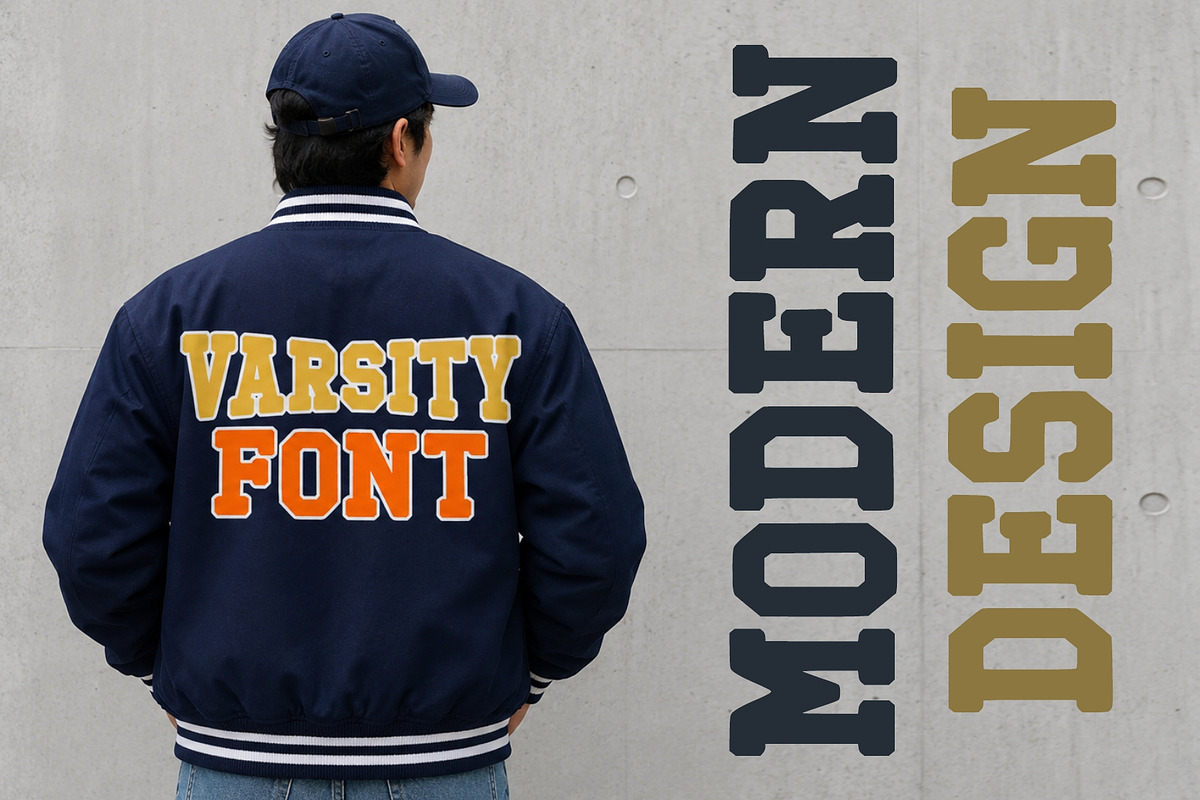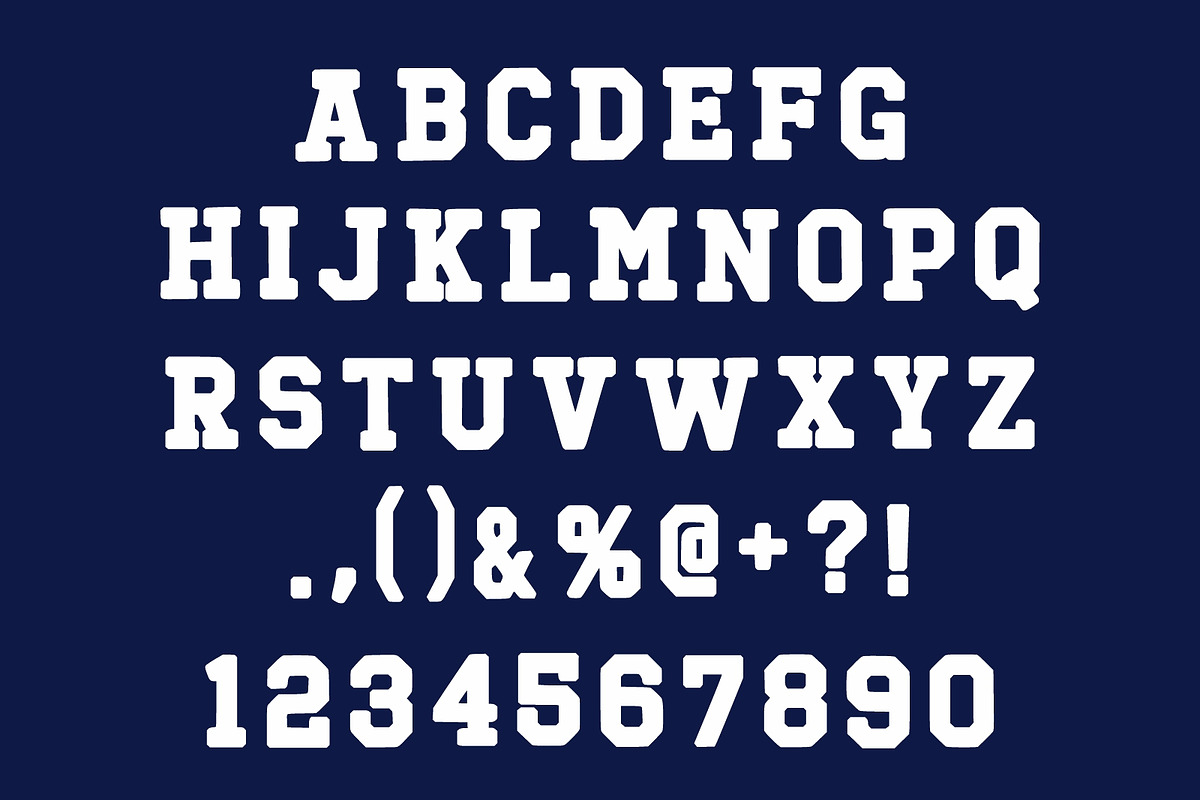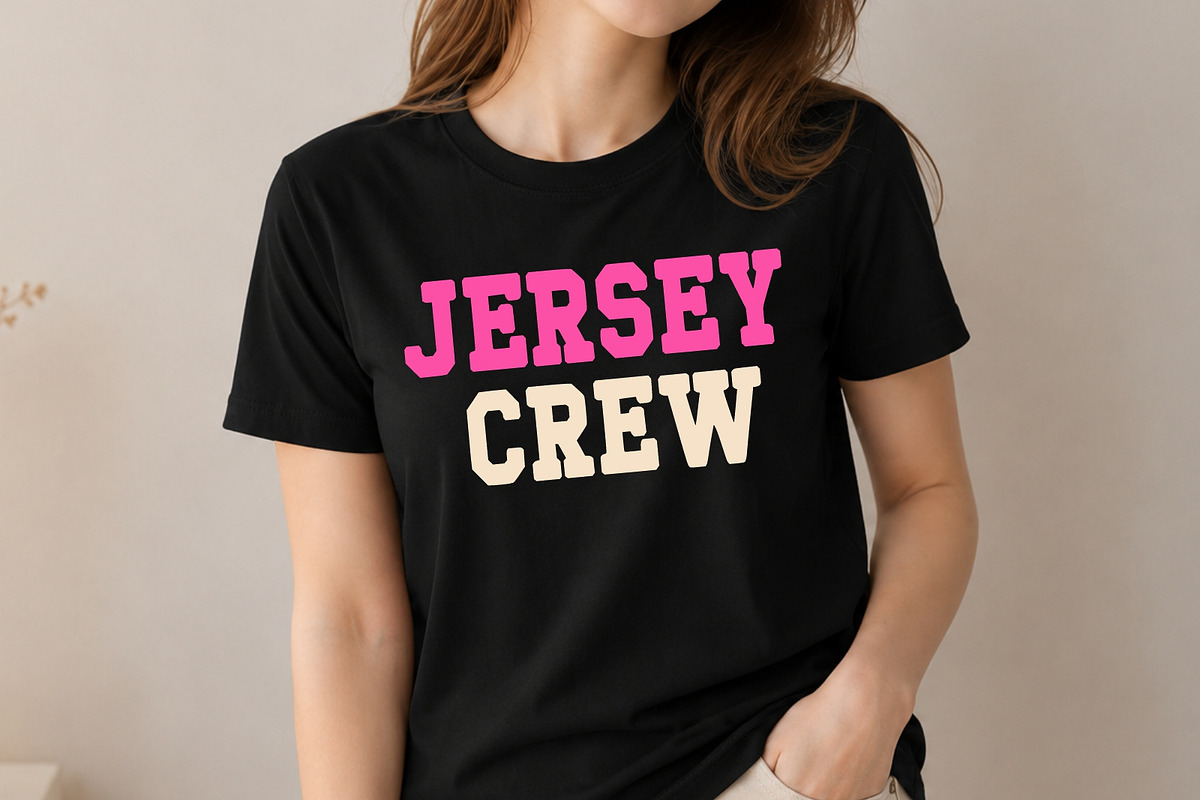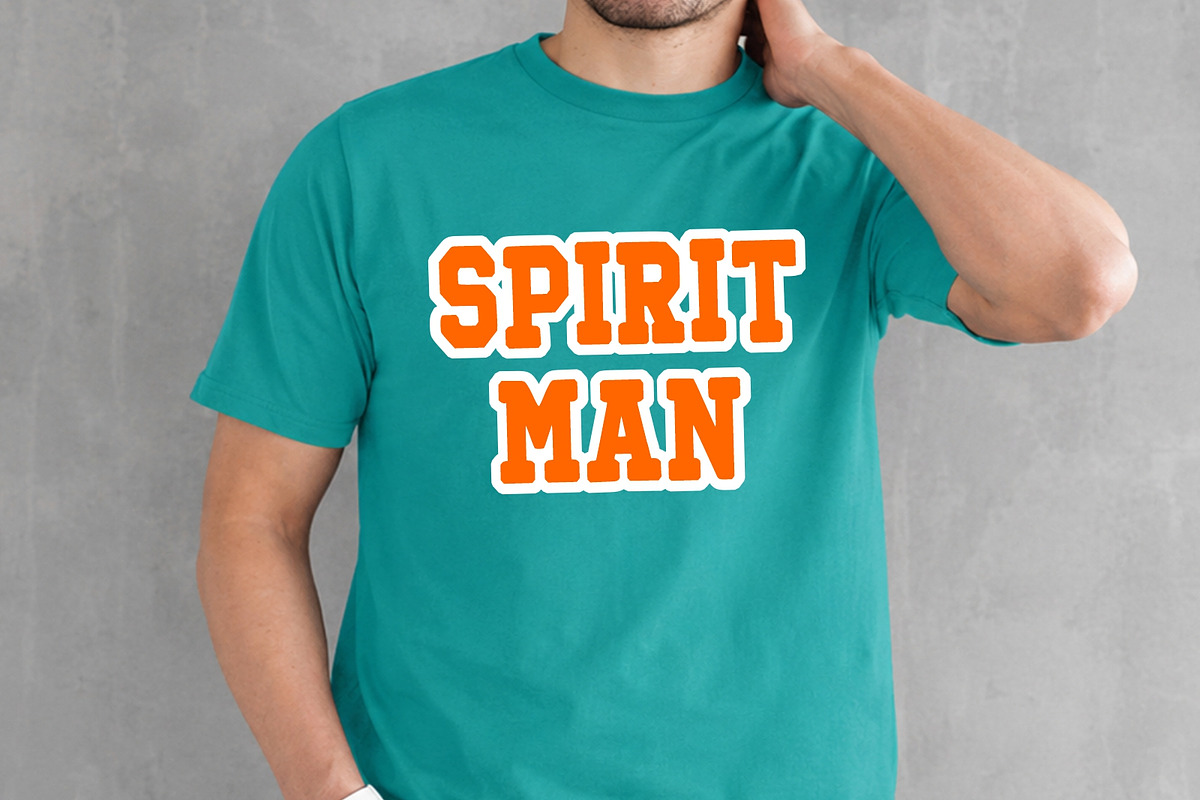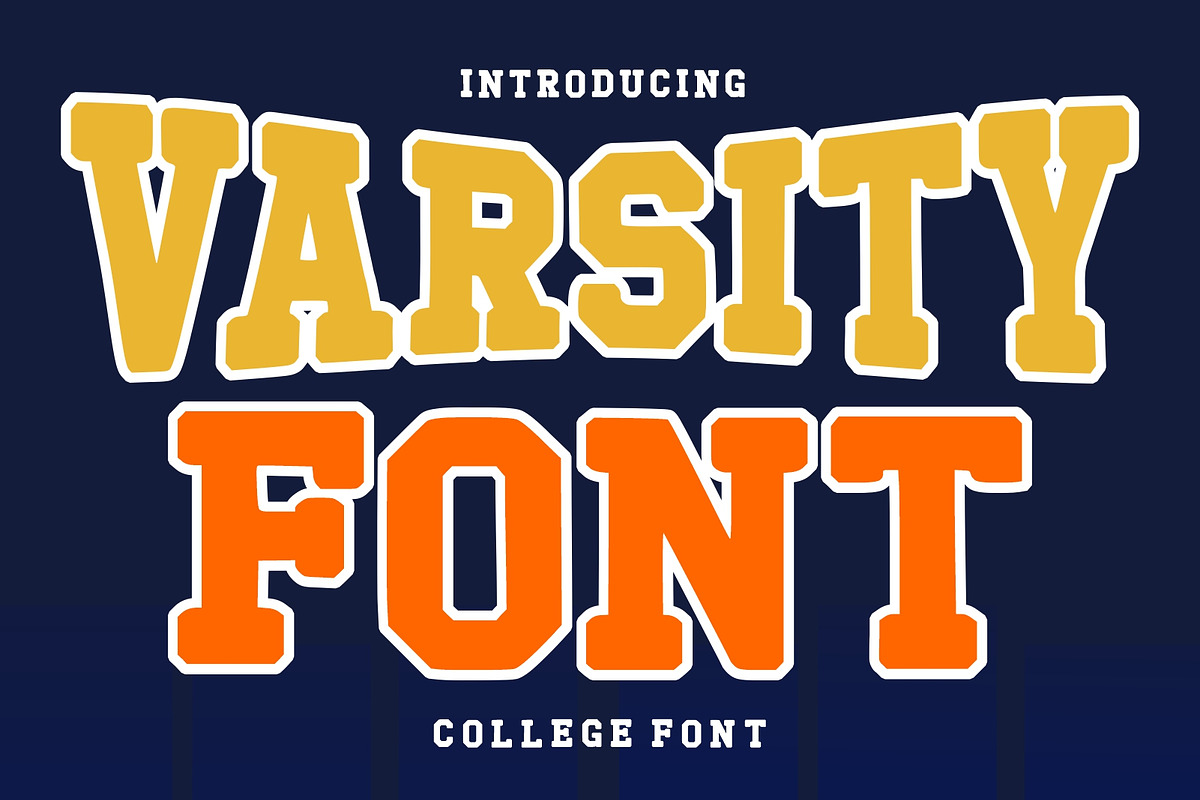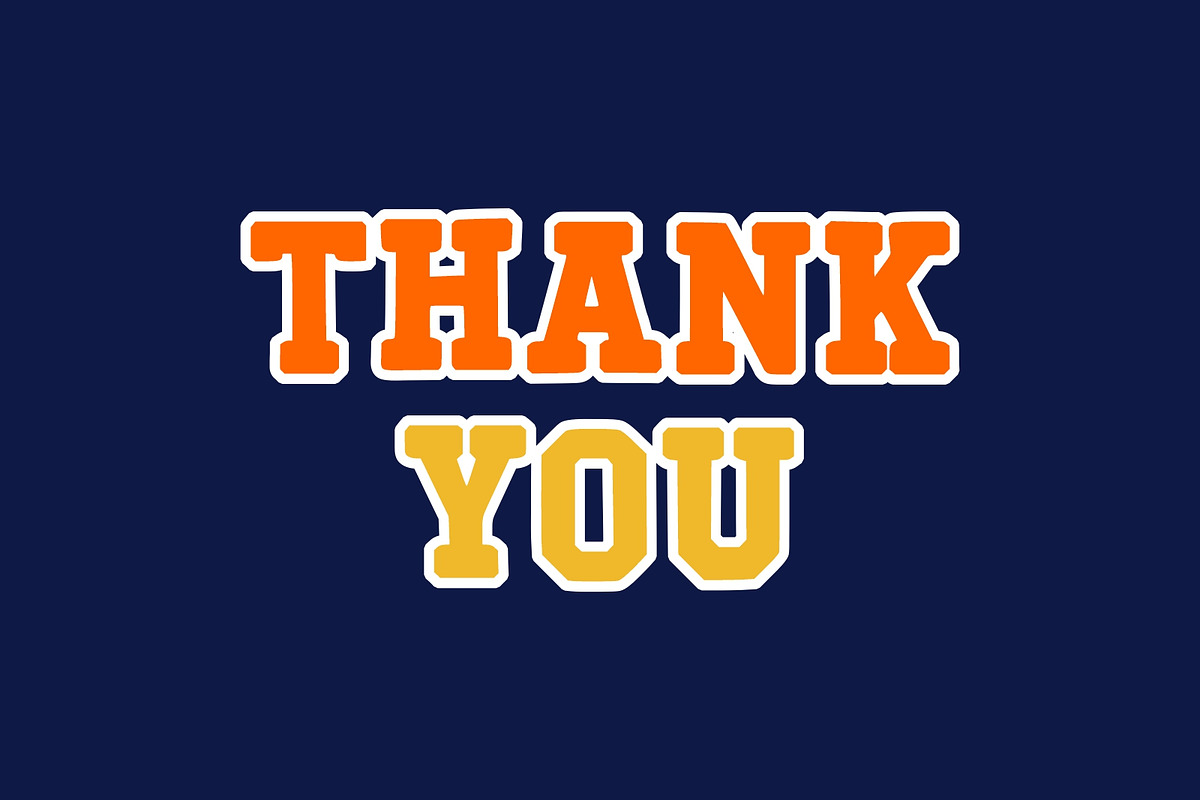
Varsity
Varsity is a bold and powerful college-style display typeface inspired by classic university lettering, sports jerseys, and vintage athletic branding. This font features strong slab shapes with a clean varsity look, making it perfect for logos, posters, apparel, team branding, merchandise, headlines, sports designs, and retro college themes.
Ideal for football, baseball, basketball, school projects, varsity jackets, esports branding, and bold typography creations. Varsity Font delivers a strong athletic character while remaining clean, readable, and eye-catching for both print and digital projects.